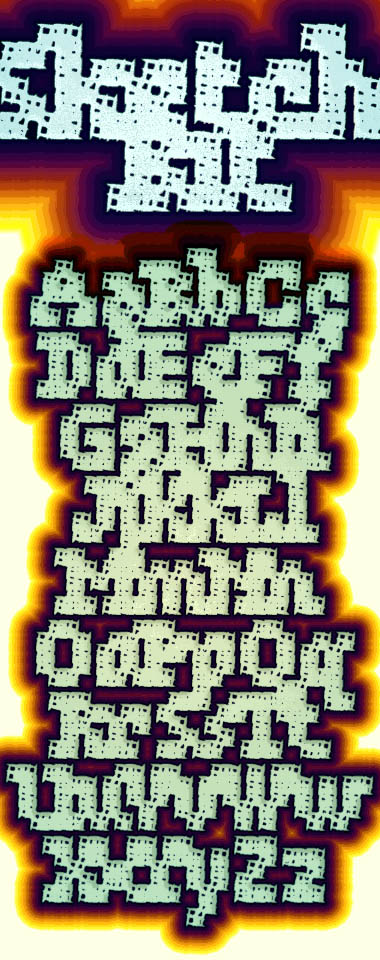
More fun with composite stacks, packing more detail into smaller grids. The crosshatching is made less regular by alternating and rotating a set of three four similar, yet distinct bricks. correction made on 2/15
Many thanks, compadres! So glad you enjoy this little min/max experiment. Drgrit is right to point out the tight – sometimes, too tight – letter spacing. I so like the mosaic patterns that emerge from the auto-ligatures of overlapping letters that I will keep it how it is for now. Good for very short display setting, I think. Adding tracking or manually kerning to restore space between letters also gives good results and/or fixes legibility issues caused by certain overlaps.
I did end up cloning this - and FS Kronos - just to see how you did it. And I still can't figure out this one by highlighting the brick (You know, to see all the stacked bricks).
@BanjoZebra - If you have not done so, make sure to look at the cloned glyphs using the outline function (Keyboard Shortcut "O" to Show/Hide Outline Mode). It's helped me quite often see how others make unique bricks.
I think it would be a bit better if there was more spacing in the letters... still 10/10!